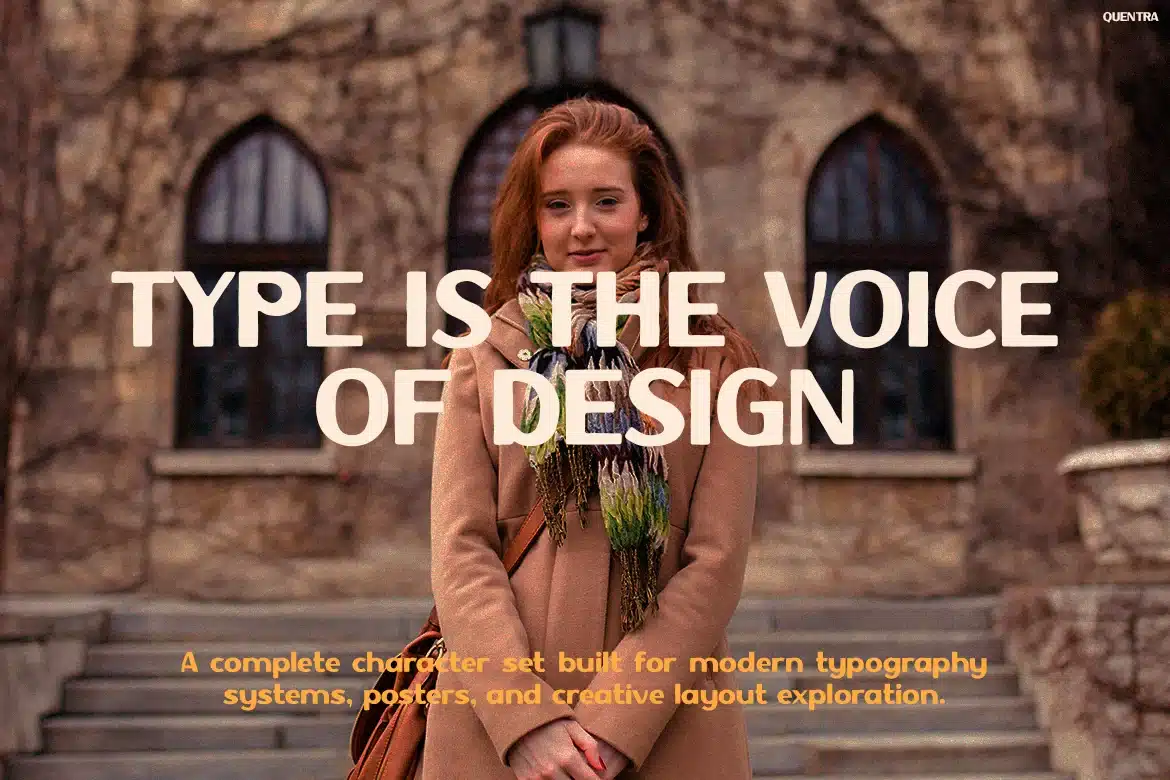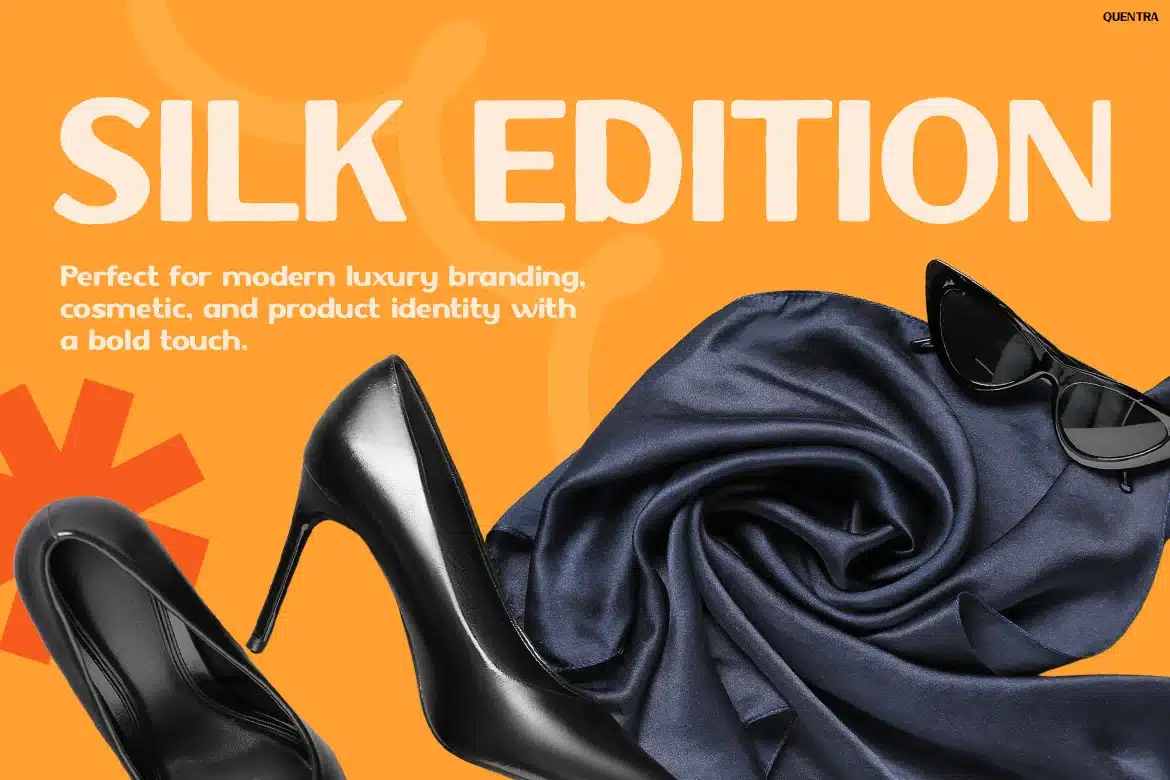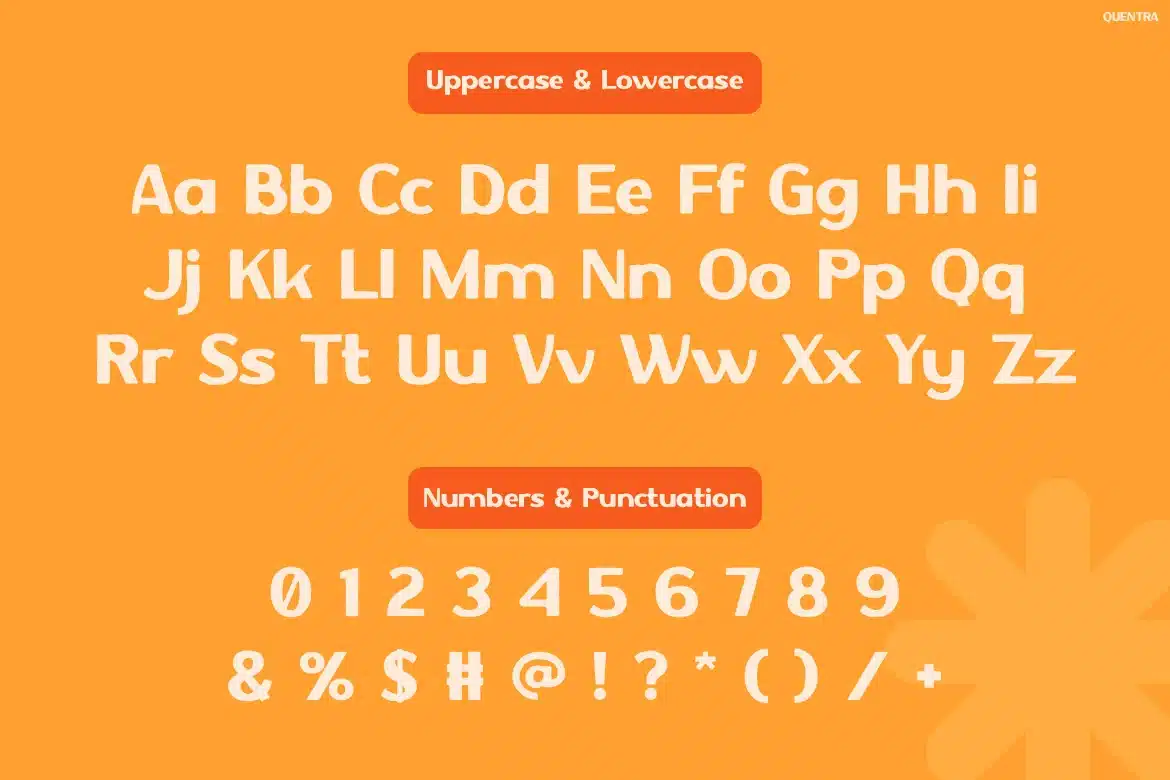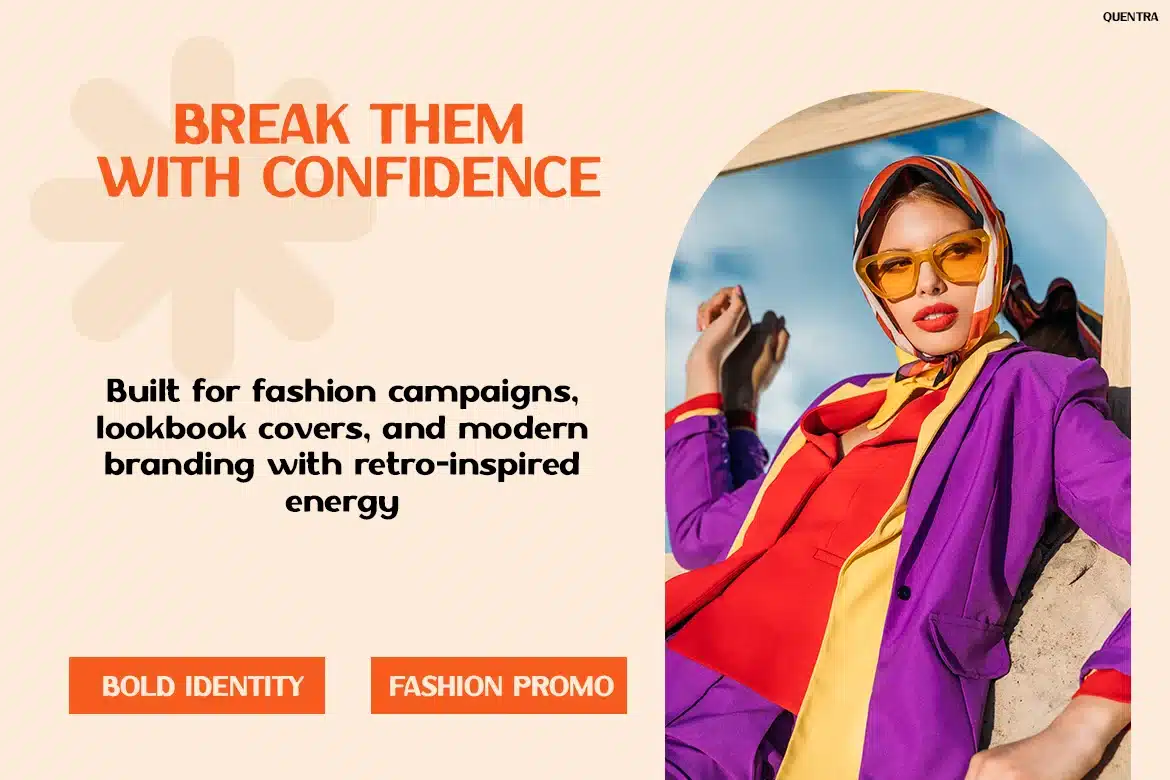
Quentra – Modern Retro Display Font
QUENTRA – Modern Retro Display Font
QUENTRA is a modern retro serif typeface crafted for editorial branding and bold visual identity, combining clean curved letterforms, balanced contrast, and refined structure that creates a smooth flow with a confident, stylish presence.
With its elegant, bold, and retro-inspired vibe, QUENTRA fits perfectly into editorial layouts, fashion campaigns, branding systems, and social media visuals. The curved serif structure and controlled contrast provide both personality and readability, while its proportions ensure a polished and structured appearance. This typeface communicates confidence, style, and modern sophistication.
QUENTRA is designed for creatives who want to build distinctive and visually engaging identities. Whether you're working on branding, posters, editorial spreads, packaging, or digital campaigns, this typeface delivers a clean yet expressive tone that captures attention instantly. Its retro-modern character makes it ideal for projects that aim to feel timeless yet current, helping brands express confidence, clarity, and aesthetic balance. If your goal is to create designs that feel bold, stylish, and editorial-ready, QUENTRA provides the perfect visual voice.
Key Features :
Modern Retro Serif Style
Combines classic serif influence with clean, contemporary curves. -
Balanced Contrast & Structure
Ensures readability while maintaining strong visual character. -
Smooth & Refined Letterforms
Curved shapes create a natural flow and polished look. -
Strong Display Impact
Perfect for headlines, branding, and editorial compositions. -
Versatile Applications
Ideal for branding, posters, social media, packaging, and editorial design.
Shape bold and stylish visuals with QUENTRA—crafted for designers who want clean structure with expressive character. Start using it today and elevate your next branding or editorial project with confidence.